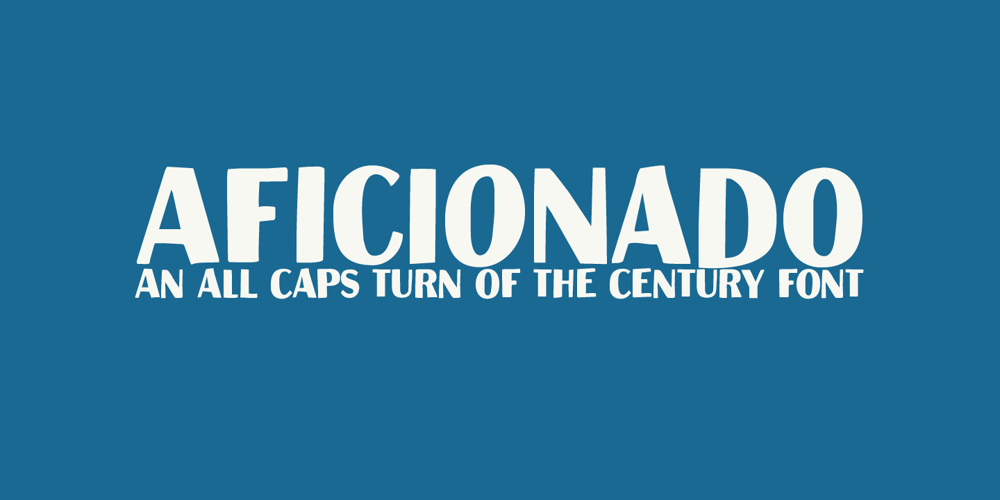
Aficionado
Aficionado font
Aficionado Font Family was designed by David Kerkhoff and published by Hanoded. Aficionado contains 2 styles and family package options. Aficionado is a hand drawn font, modeled after classy turn of the century typefaces. It is a very legible all-caps font which will certainly give your designs an elegant look!